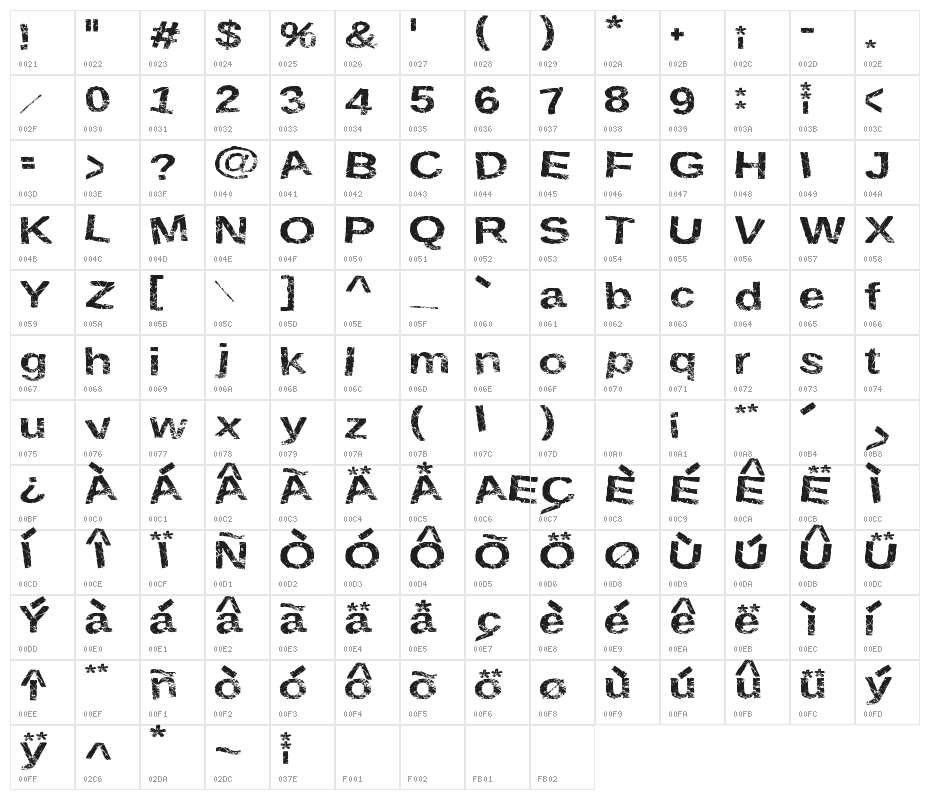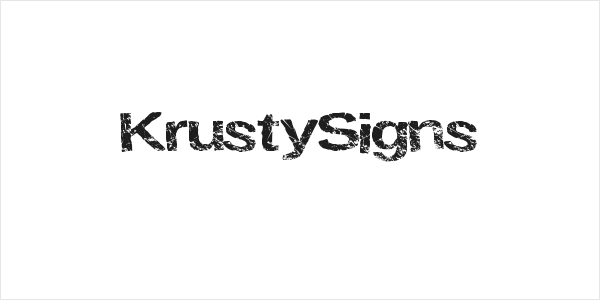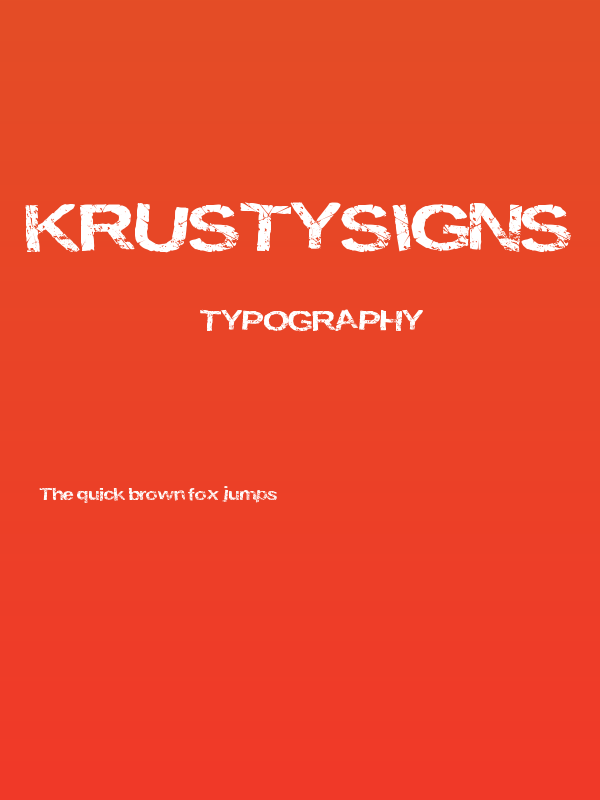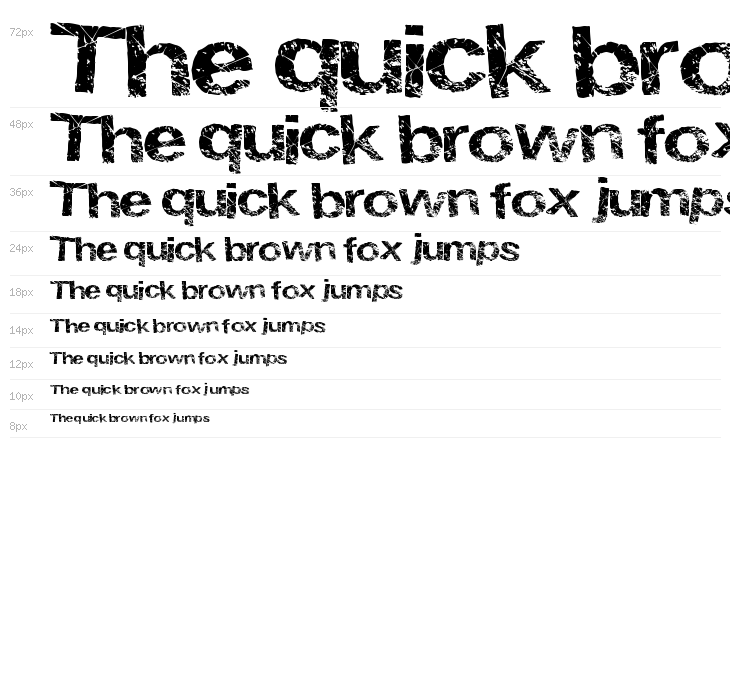
KrustySigns Font
| 全体的なスタイル | Grunge, Edgy, Distressed |
| おすすめプロジェクト | Ideal for posters, album covers, streetwear branding, or any project needing a bold, edgy look. |